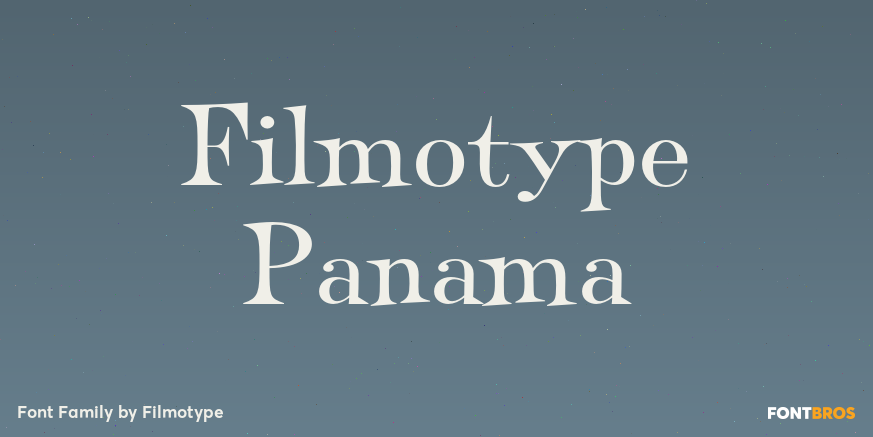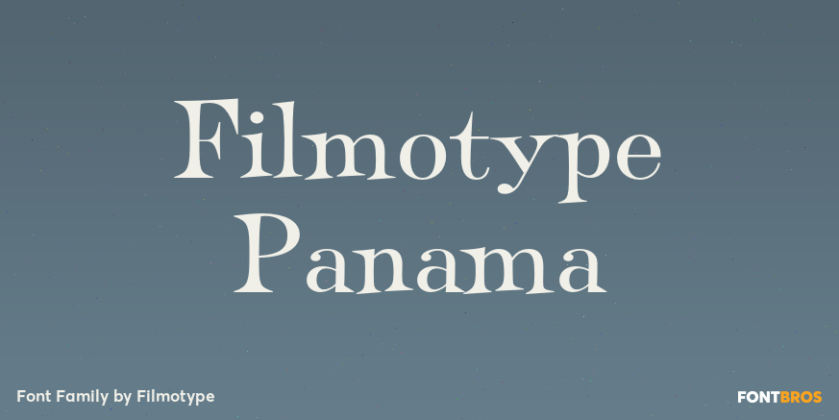
Filmotype Panama
About Filmotype Panama
Initially offered in the late 1950s, Filmotype Panama was one of Filmotype\’s \’tipsy\’ serif Free Style typefaces which featured a delightful blend between casual serif and latin styles. Remastered and expanded with exacting precision from the original…